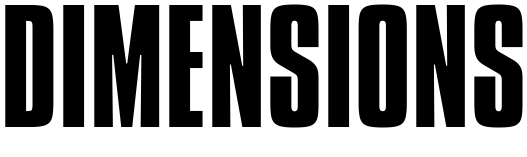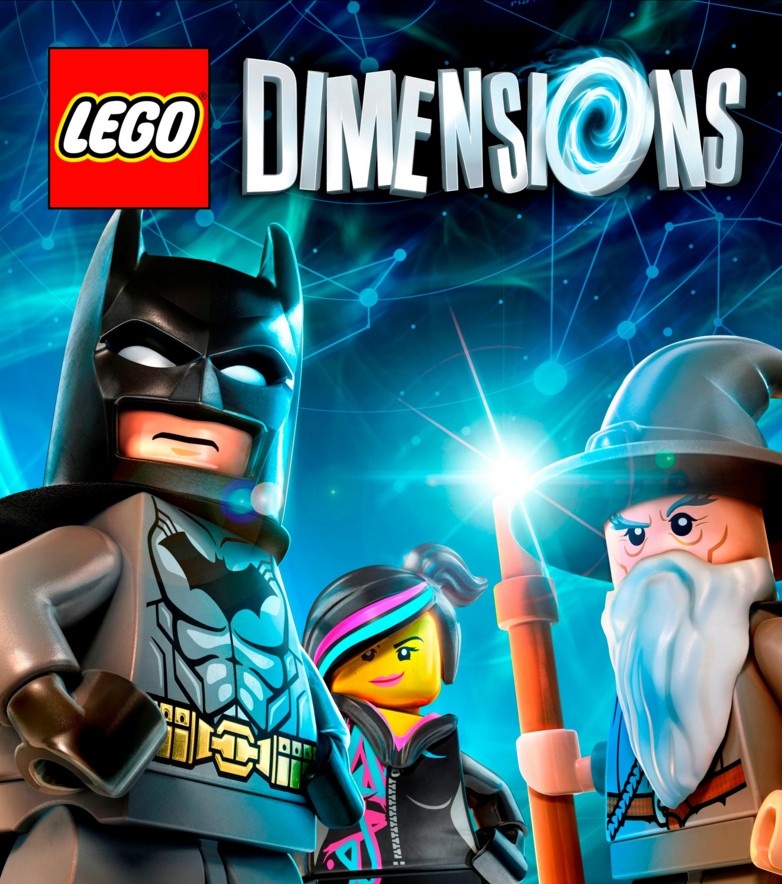
Lego Dimensions Font
ActionLego Dimensions is a Lego-themed action-adventure platform crossover video game developed by Traveller's Tales and published by Warner Bros. Interactive Entertainment. LEGO Dimensions is a video game that combines elements of the LEGO toy franchise with various licensed properties. Players can use physical LEGO minifigures and toy sets to unlock in-game content and access new areas within the game.
The font used for the Lego Dimensions game logo is Compacta Regular which is designed by Fred Lambert. The condensed sans serifs resembles the narrow, stencilled sans serifs of the 1920s.